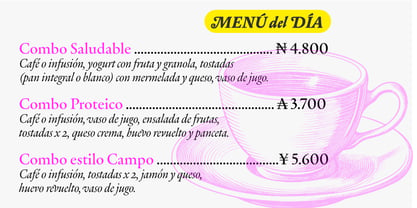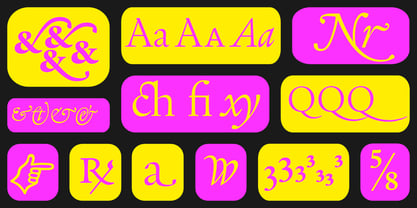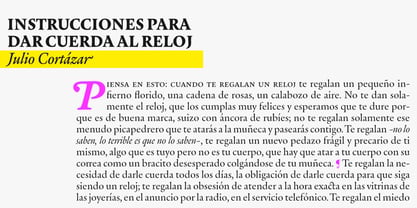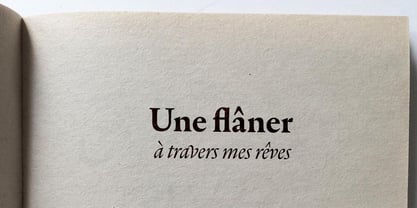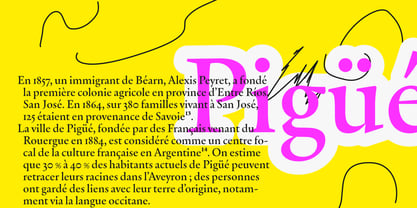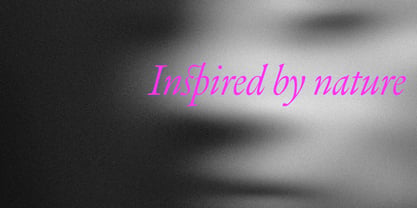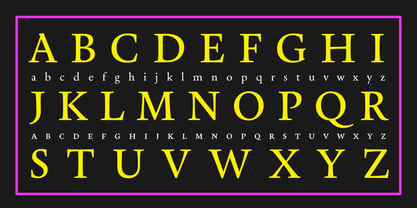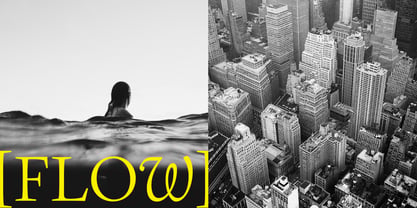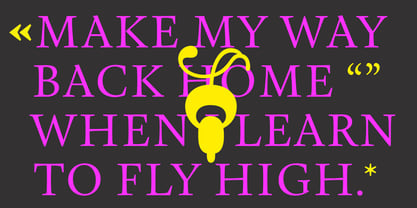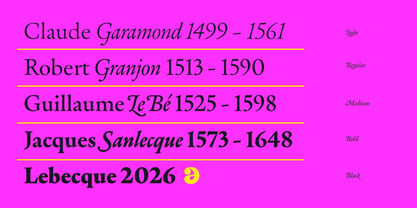
Lebecque
The Lebecque Font Family was designed by Alfonso García and published by Alffonts. Lebecque contains 10 styles and family package options. More about this family
Lebecqué is born from a revival exercise with a clear purpose: to dive deep into historical forms and transform them into something distinctly personal and contemporary. It began with a simple but powerful question —how close does a typeface need to be to its source to truly be called a revival? And more importantly, can a Renaissance typeface exist in today’s world? The roman draws inspiration from a fragment sent by Guillaume Le Bé II to Jan Moretus in 1599, a typeface cuted by Jacques Sanlecque; while the italic references the work of Robert Granjon. But Lebecqué is not about replication—it’s about interpretation. This project explores the subtle details that define these originals and reimagines them through a modern lens. The result is a typeface that bridges centuries, blending historical richness with a fresh, contemporary voice. Lebecqué invites us to rethink what “contemporary” really means—proving that the past is not something we leave behind, but something we continuously reinterpret.